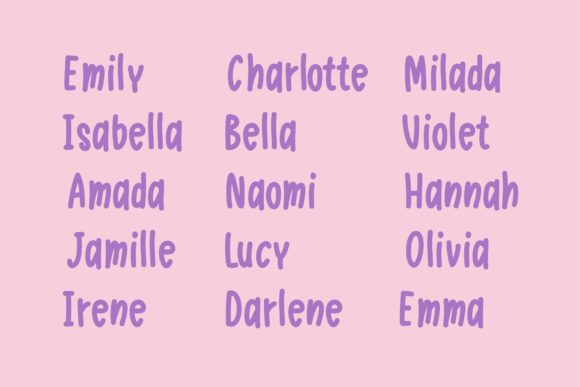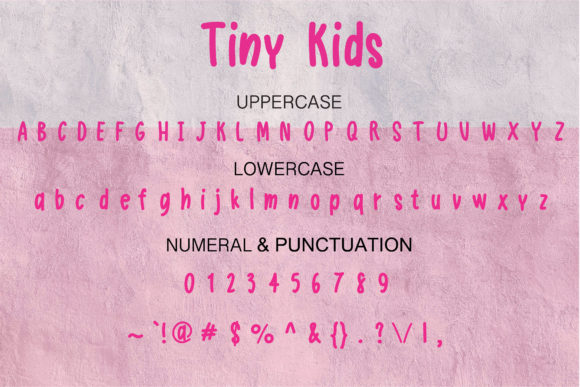
Tiny Kids Font
db-ku.com - Script & Handwritten -- Tiny Kids is a cute, playful and friendly handwritten font. This font is perfect for children themed designs, especially when combined with bright colors.